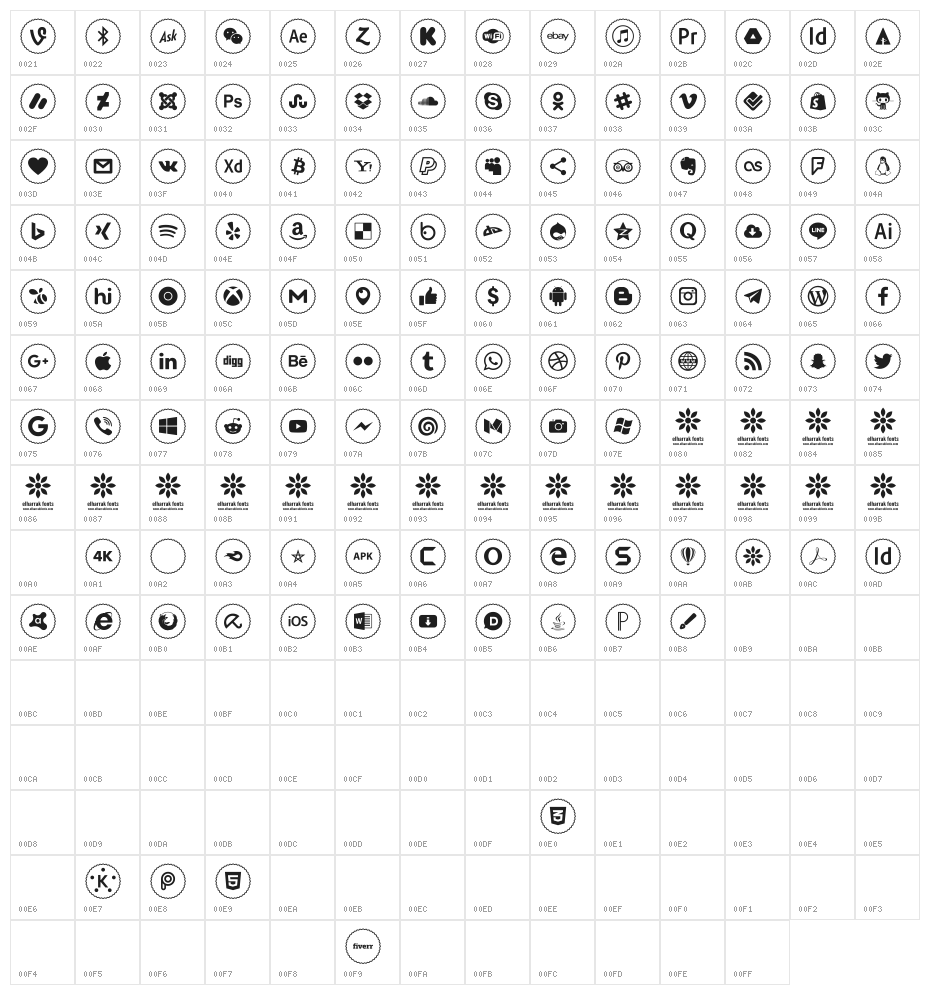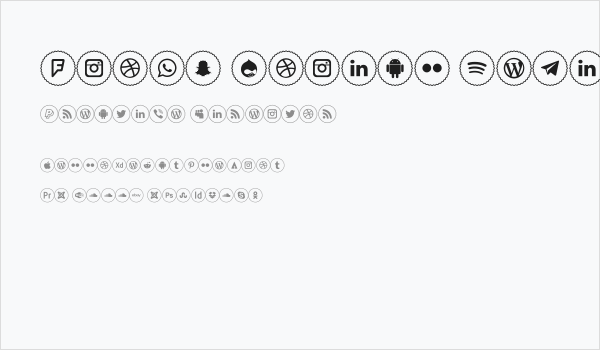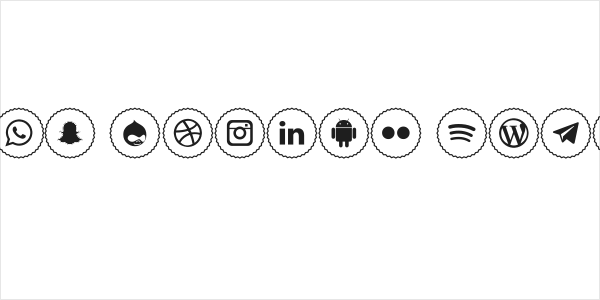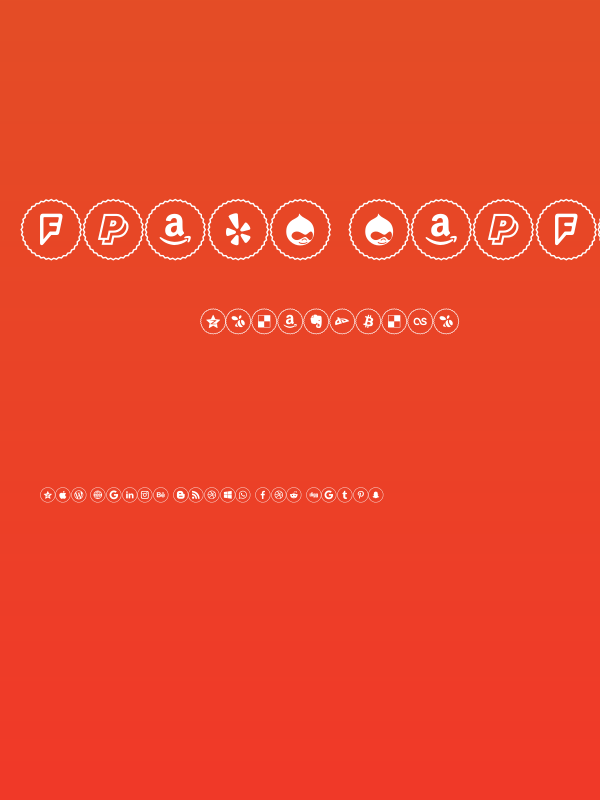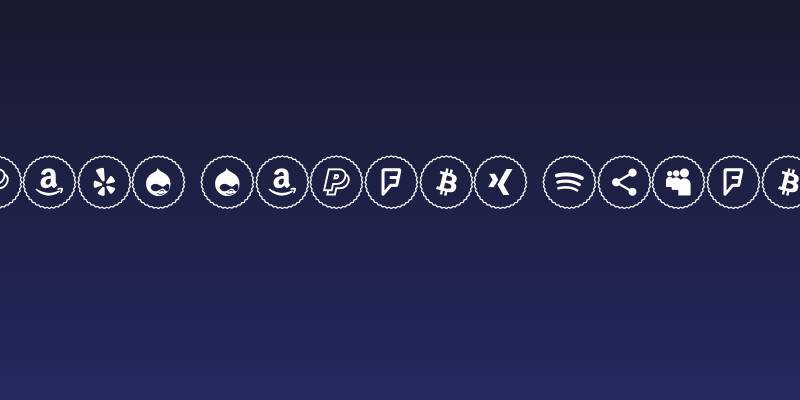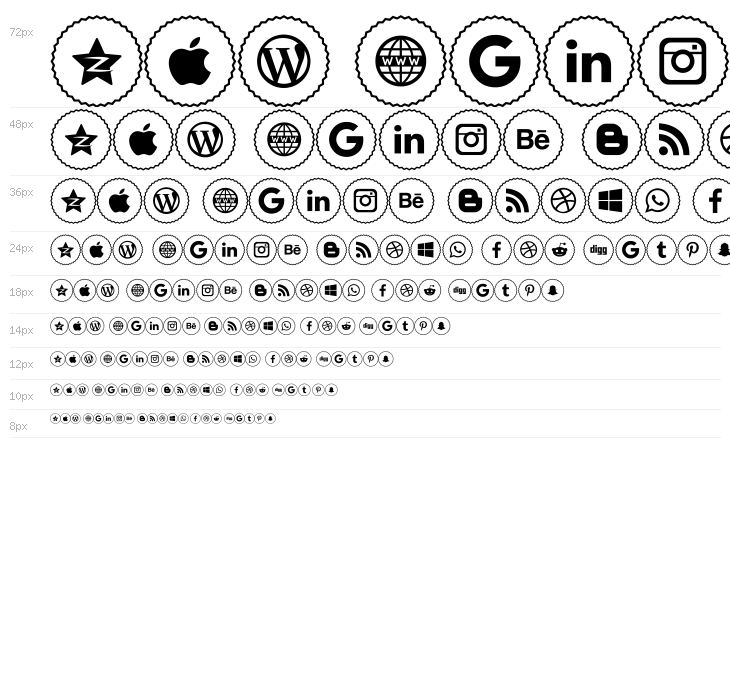
Icons Social Media 2 Font
Icons Social Media 2 Description
A collection of monochrome social media and technology icons enclosed in circular borders with a scalloped edge, designed in a simple and consistent style.
| Overall Style | Modern, Minimalist |
| Use Case | Icons for digital interfaces, social media links, branding elements. |
| Proposed Projects | Use in websites, apps, social media profiles, marketing materials, and user interfaces to represent social media platforms and services. |